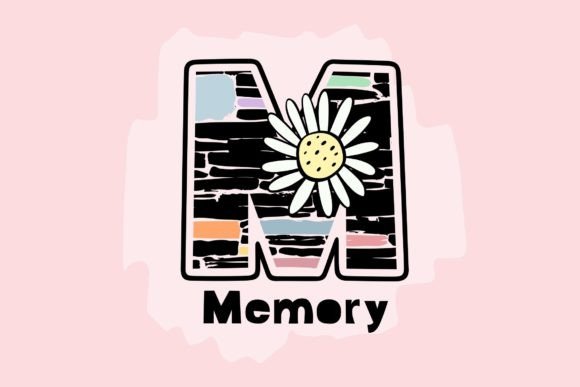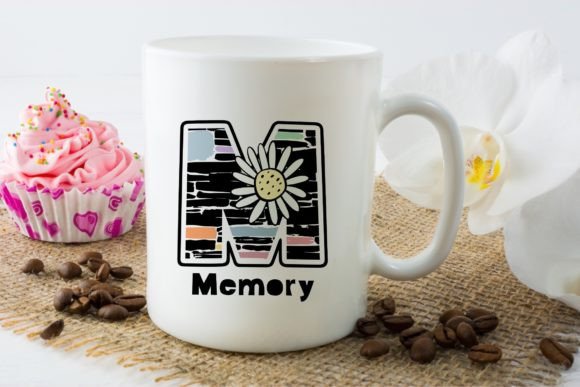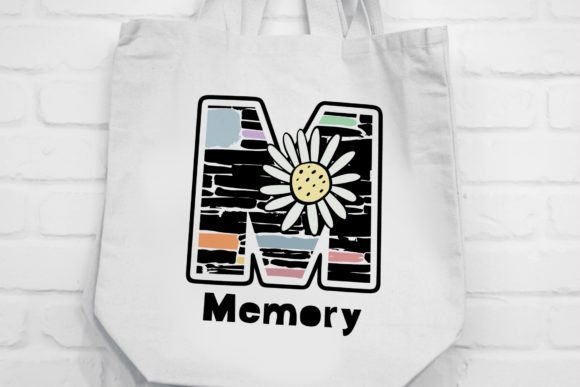
Daisy Grunge is Cute and Cool duo font ( Decorative and Display ).
This font is the perfect fit for all of your logos, branding, social media, crafty DIY projects, and much more .